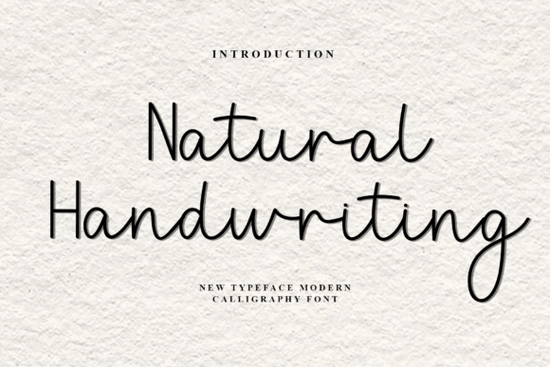
Natural Handwriting Font is a versatile and expressive script that brings a personal touch to any design project. Whether you're creating greeting cards, invitations, or product packaging, this font adds a warm, authentic feel that stands out. Its playful strokes and whimsical style make it perfect for branding, social media posts, and creative projects that need a human-like touch.
For designers and small businesses looking for a unique typeface, Natural Handwriting Font offers a refreshing alternative to more rigid digital fonts. It’s especially useful when you want to convey a sense of nostalgia or intimacy in your work. The font’s natural flow mimics real handwriting, making it ideal for handwritten-style text without the effort of actually writing it by hand.
If you're working on a project that requires a friendly and approachable look, this font can help you achieve that effortlessly. It works well with both modern and vintage aesthetics, giving you flexibility in how you use it. Whether you’re designing for print or digital platforms, Natural Handwriting Font adapts beautifully to different formats and sizes.
How to Use Natural Handwriting Font in Your Projects
One of the best ways to use Natural Handwriting Font is in greeting cards and invitations. Its soft curves and flowing lines give a handmade feel that makes your message more personal. You can pair it with other fonts for contrast, like a clean sans-serif for headings or body text. This combination helps keep your design balanced while still standing out.
For print-on-demand sellers, this font can be a valuable addition to your library. It works well on t-shirts, mugs, and other custom products where a handwritten look adds charm. You can also use it in social media graphics, such as Instagram posts or Facebook banners, to create a more engaging and relatable visual identity.
When using Natural Handwriting Font, consider the context of your design. It may not be the best choice for large blocks of text, but it shines in short phrases, headlines, and decorative elements. Experimenting with different sizes and spacing can help you find the right balance between readability and style.
Similar Fonts to Explore
If you enjoy the look of Natural Handwriting Font, there are other script fonts that might interest you. Monday Spooky Script offers a more dramatic and stylized appearance, perfect for Halloween or themed designs. Ballpark Beauty has a softer, more elegant feel, making it great for wedding invitations or luxury branding.
For something more refined, Stayard and Rob provides a classic yet modern script that works well in professional settings. Emily Joseph is another option that combines elegance with a personal touch, ideal for logos and branding materials.
Each of these fonts has its own unique character, so exploring them can help you find the right fit for your specific needs. They all share the same charm as Natural Handwriting Font but offer different styles and applications.
Where to Find Natural Handwriting Font
As you explore the possibilities of Natural Handwriting Font, remember that the key to great design is knowing how to use each element effectively. With the right approach, this font can become a go-to resource for many of your creative projects.
- Try pairing it with a simple sans-serif for contrast
- Use it in short phrases or headlines for maximum impact
- Experiment with different sizes and spacing to find the best look